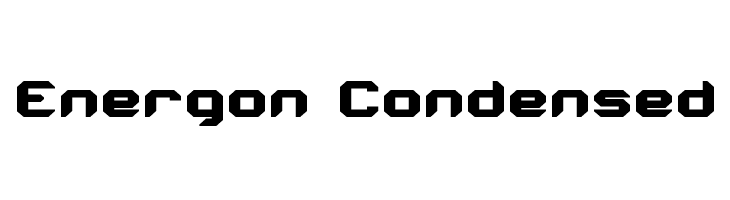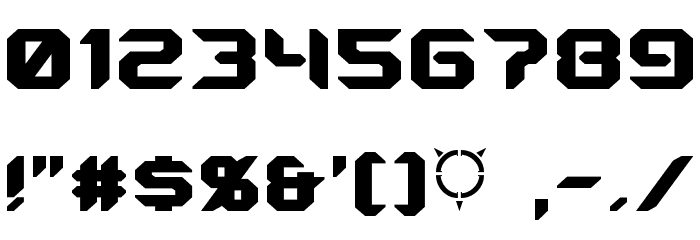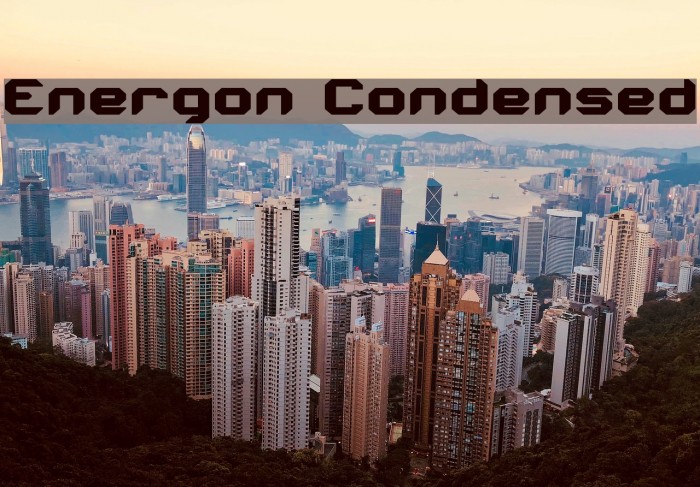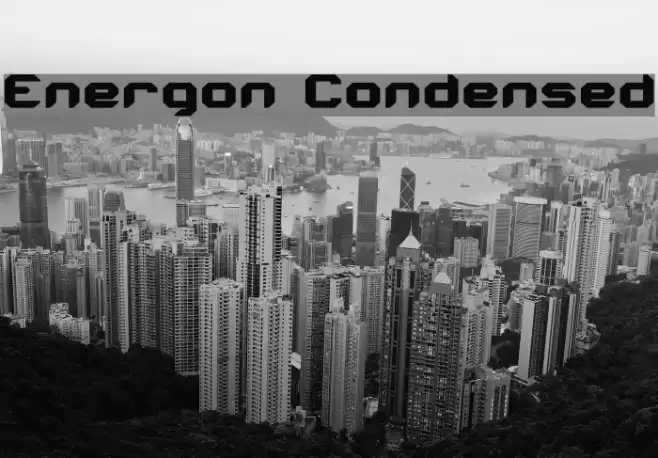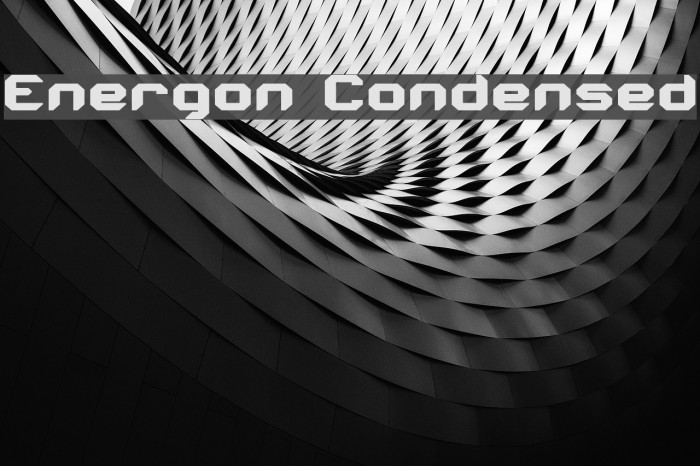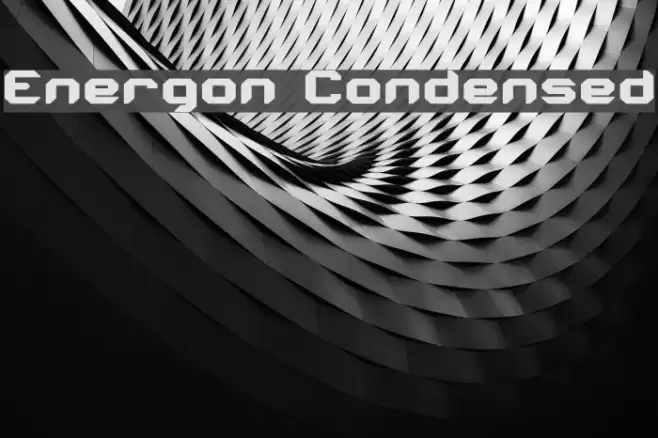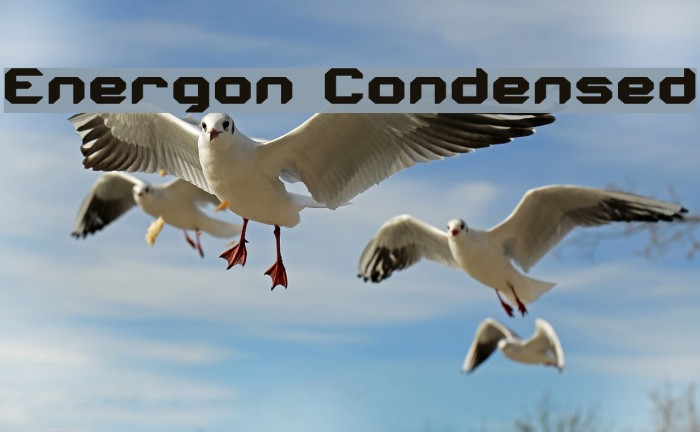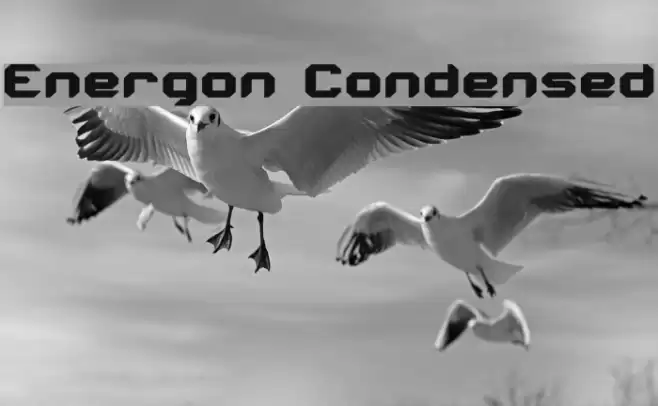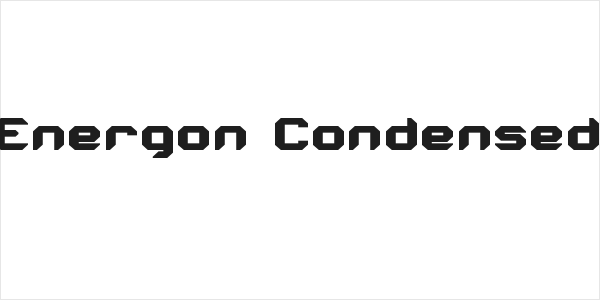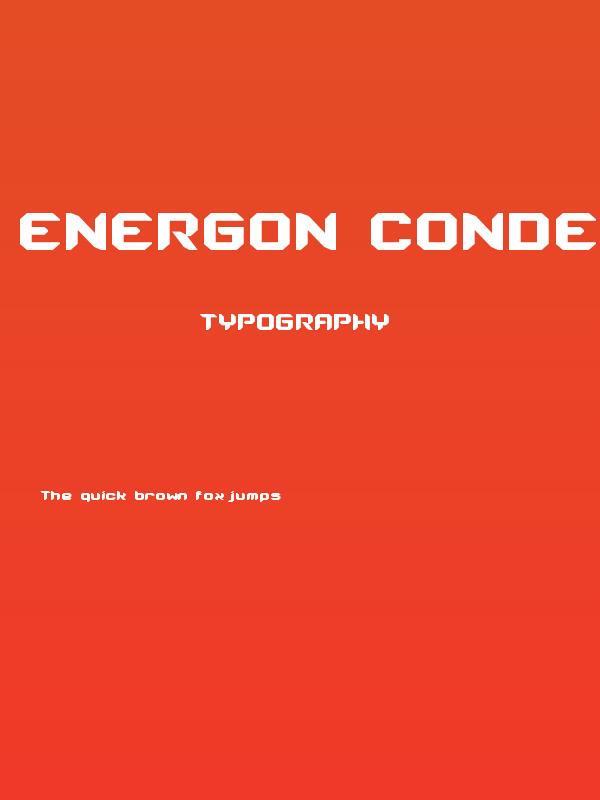
Energon Condensed Font
Energon Condensed Description
This font features a bold, futuristic design with angular, geometric shapes that give it a strong, mechanical feel. The characters are crafted with sharp edges and a condensed width, making it ideal for impactful headlines and modern design projects. The uppercase and lowercase letters maintain a consistent style, with a uniform height that enhances readability. Numbers and special characters are designed to match the overall aesthetic, providing a cohesive look across all elements. The font's unique style makes it suitable for projects that require a tech-inspired or industrial theme.
| Overall Style | Futuristic, Industrial |
| Proposed Projects | Ideal for tech-themed branding, video game titles, sci-fi posters, and industrial design projects. |